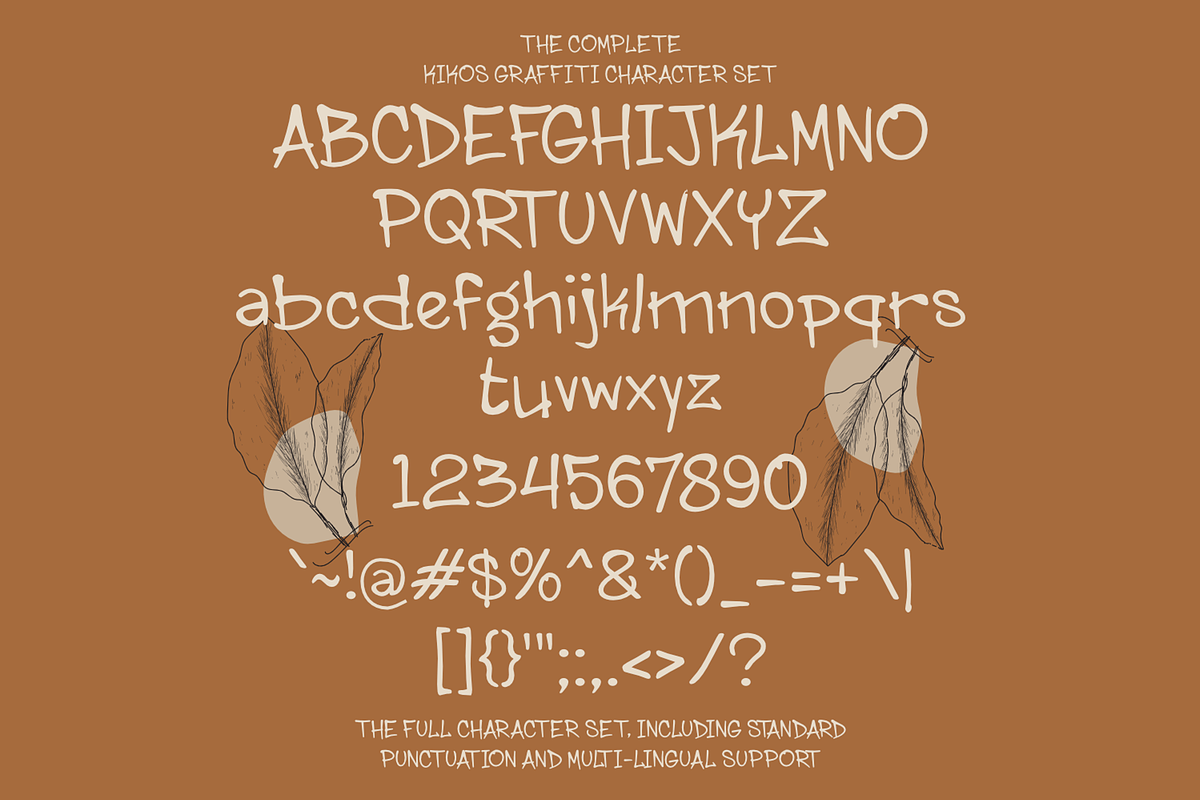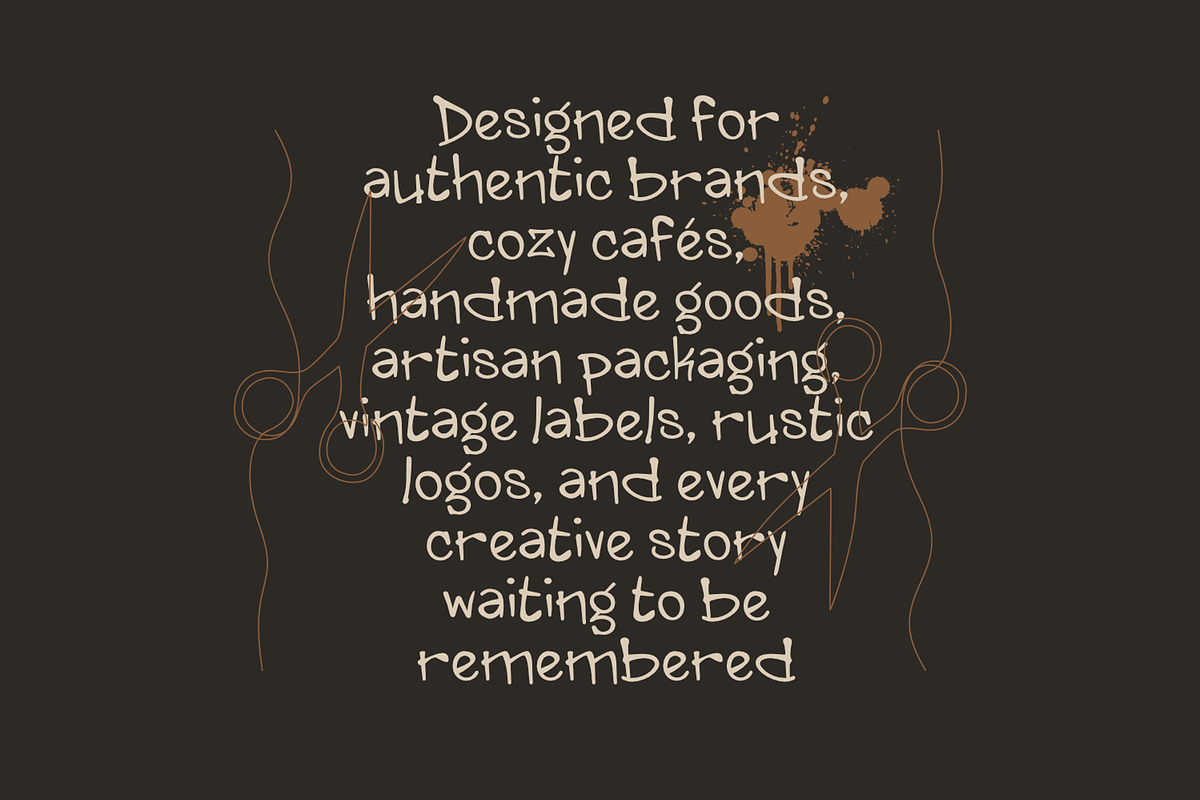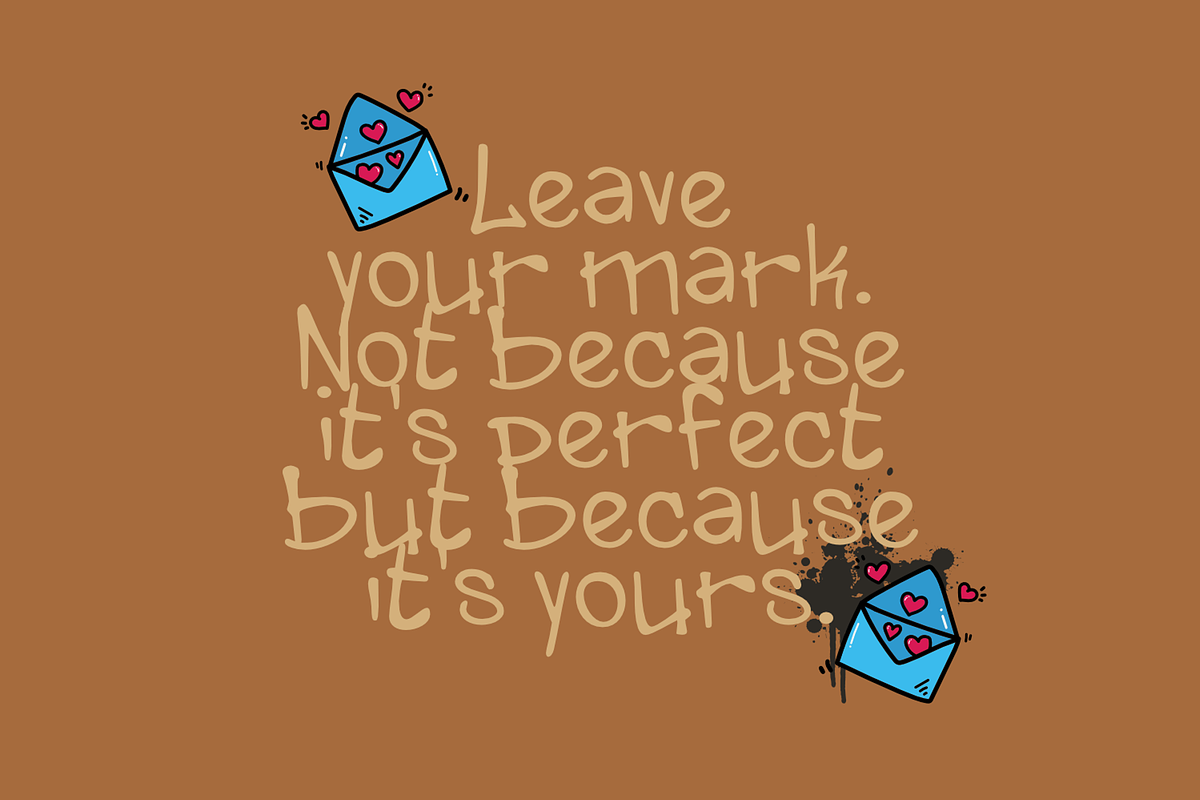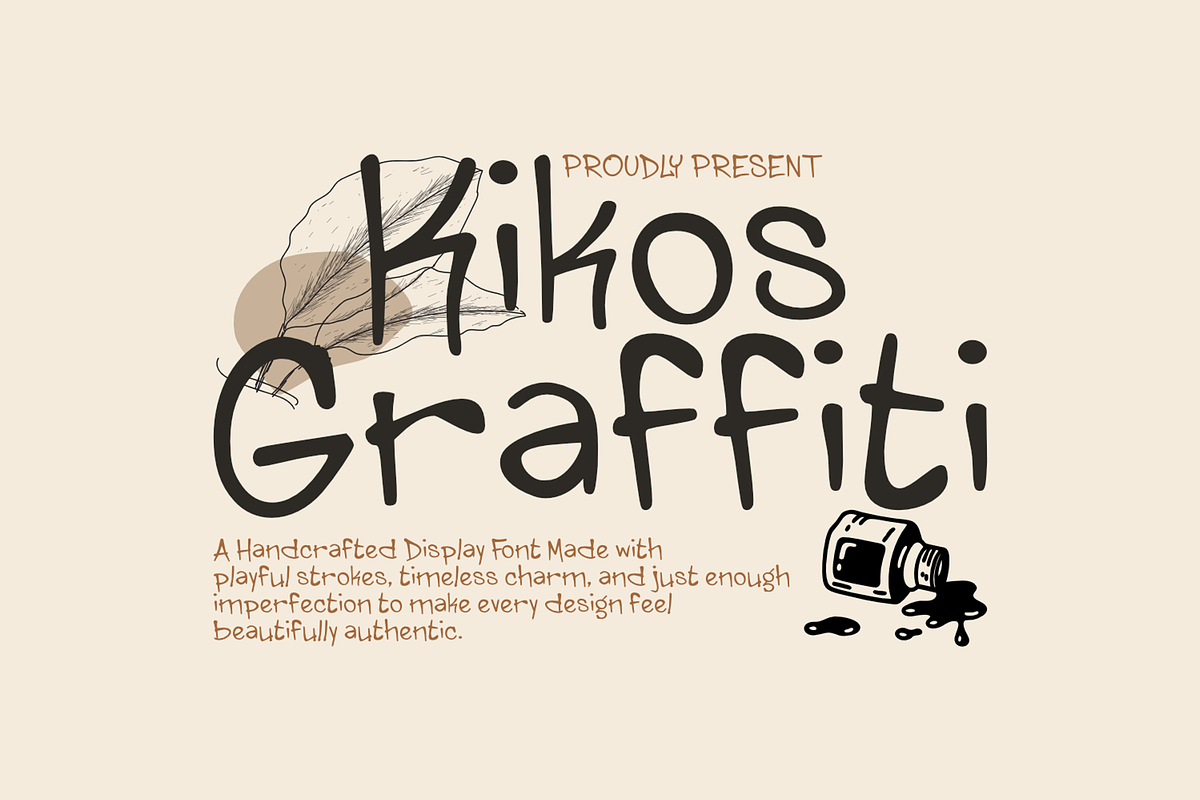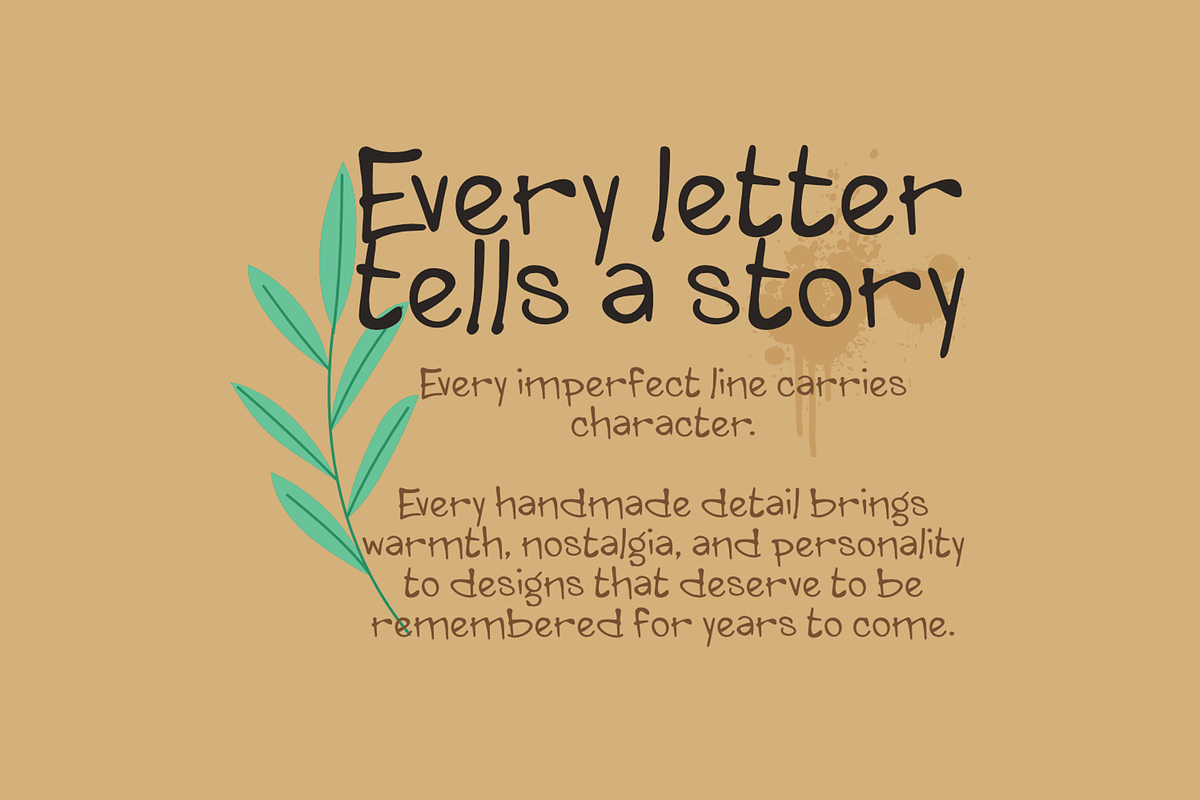
Kikos Graffiti Playful Display Font
Kikos Graffiti is a playful handmade display font inspired by casual marker lettering and vintage graffiti aesthetics. Featuring smooth curves, rounded edges, and an authentic handwritten feel, this font adds warmth, personality, and charm to any creative project. Perfect for logos, branding, packaging, posters, apparel, social media, children's products, stickers, merchandise, invitations, book covers, and eye-catching headlines. Whether you're creating fun branding or nostalgic vintage-inspired designs, Kikos Graffiti delivers a bold, friendly, and memorable look that stands out effortlessly.